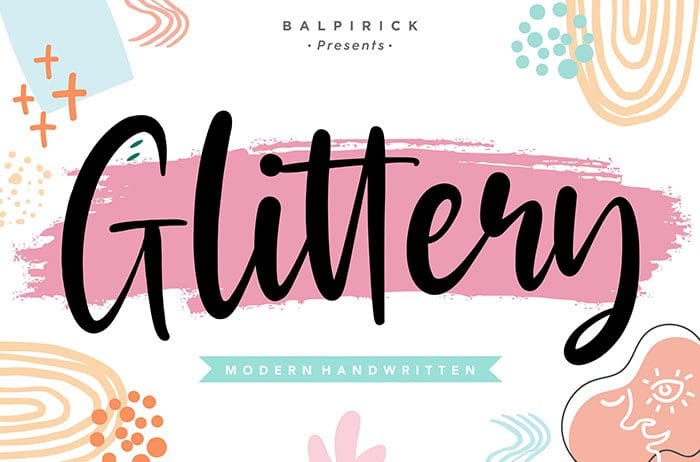
Free Glittery Handwritten Font
Glittery Handwritten Font
Free Glittery handwritten font simplifies elegance into one truly outstanding font. Whether you’re looking for fonts for Instagram or calligraphy scripts for DIY projects, this font will turn any creative idea into a true piece of art! Designed this font by Balpirick Studio. You can also search more free Handwritten Fonts.